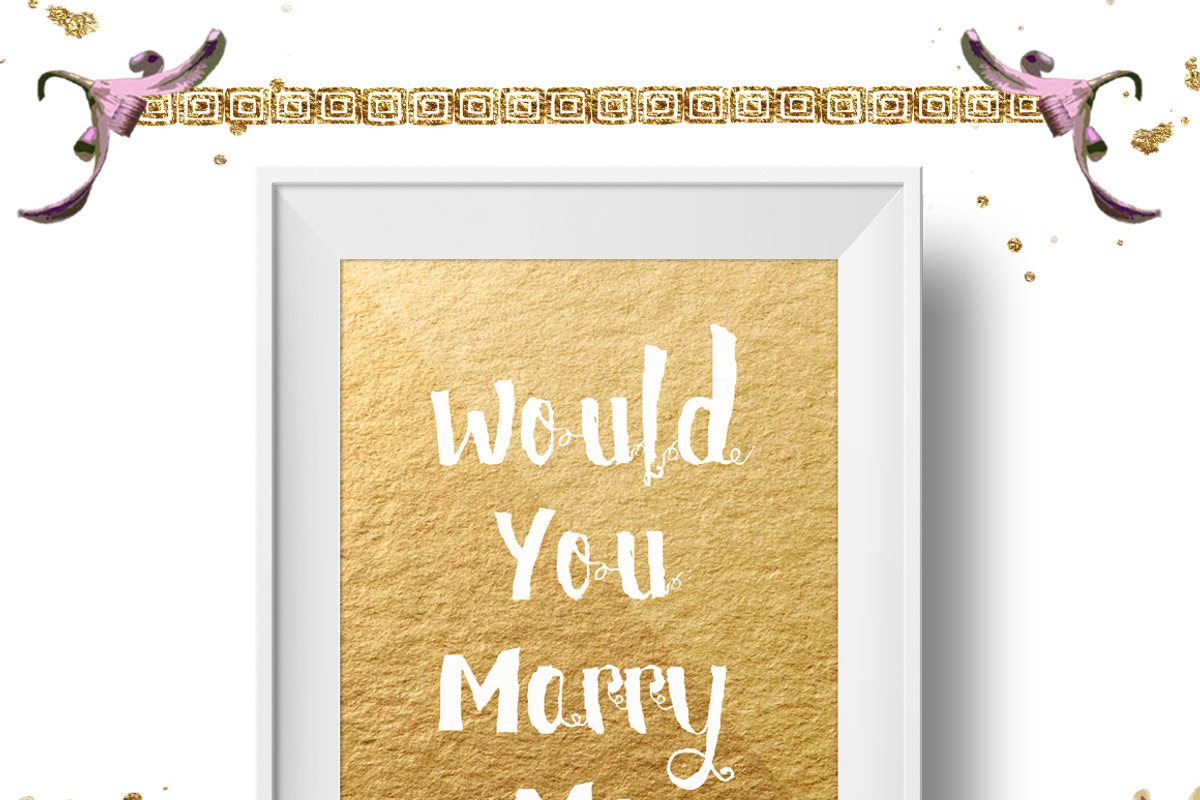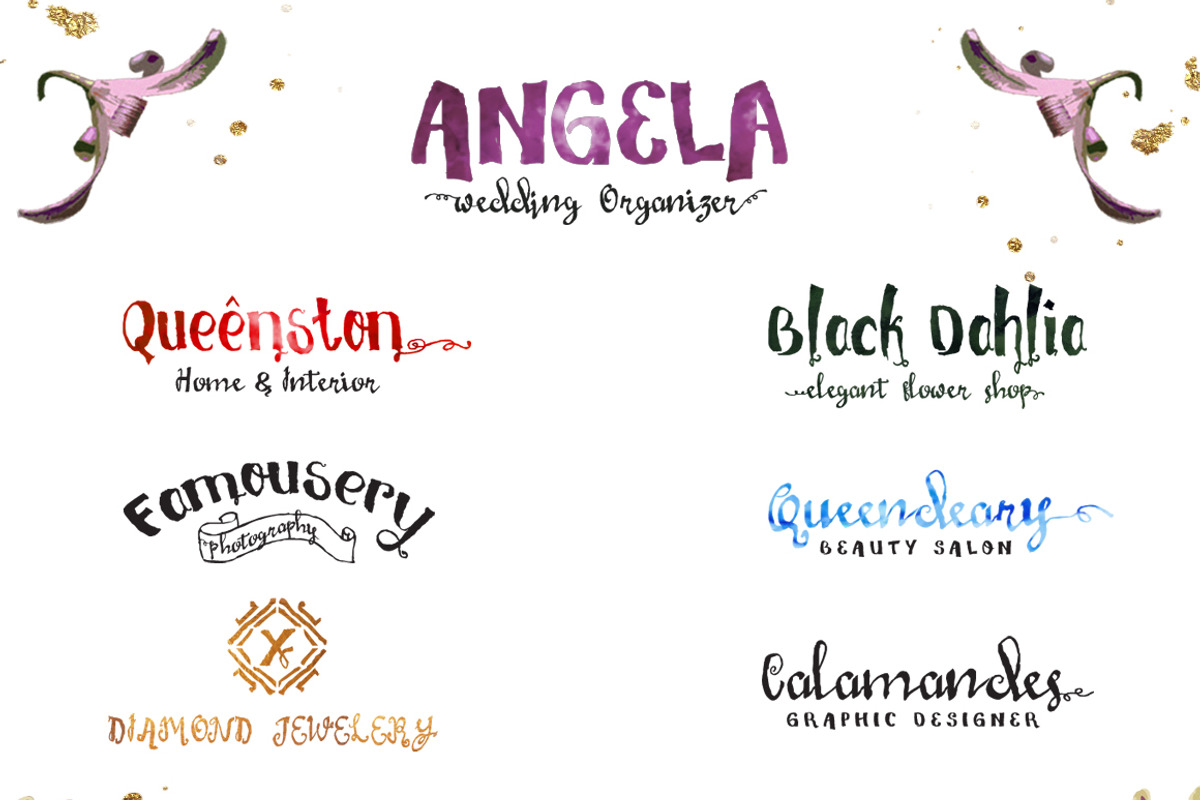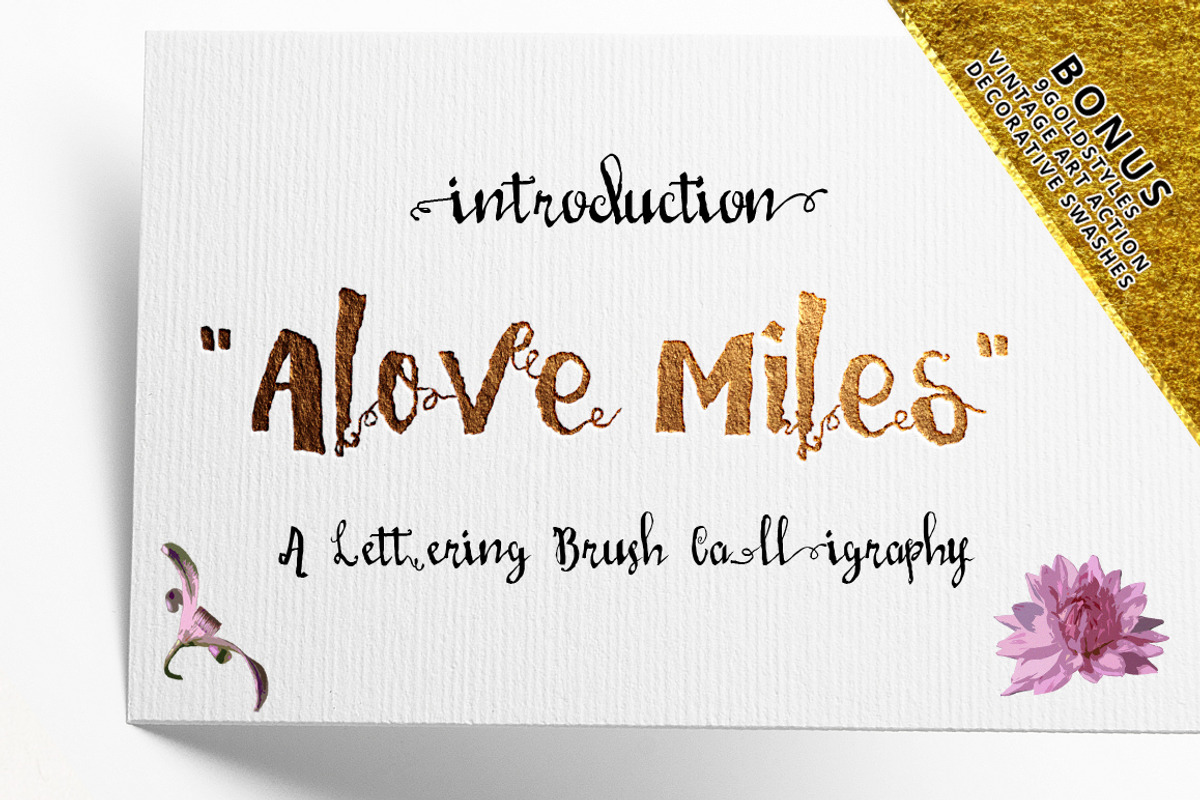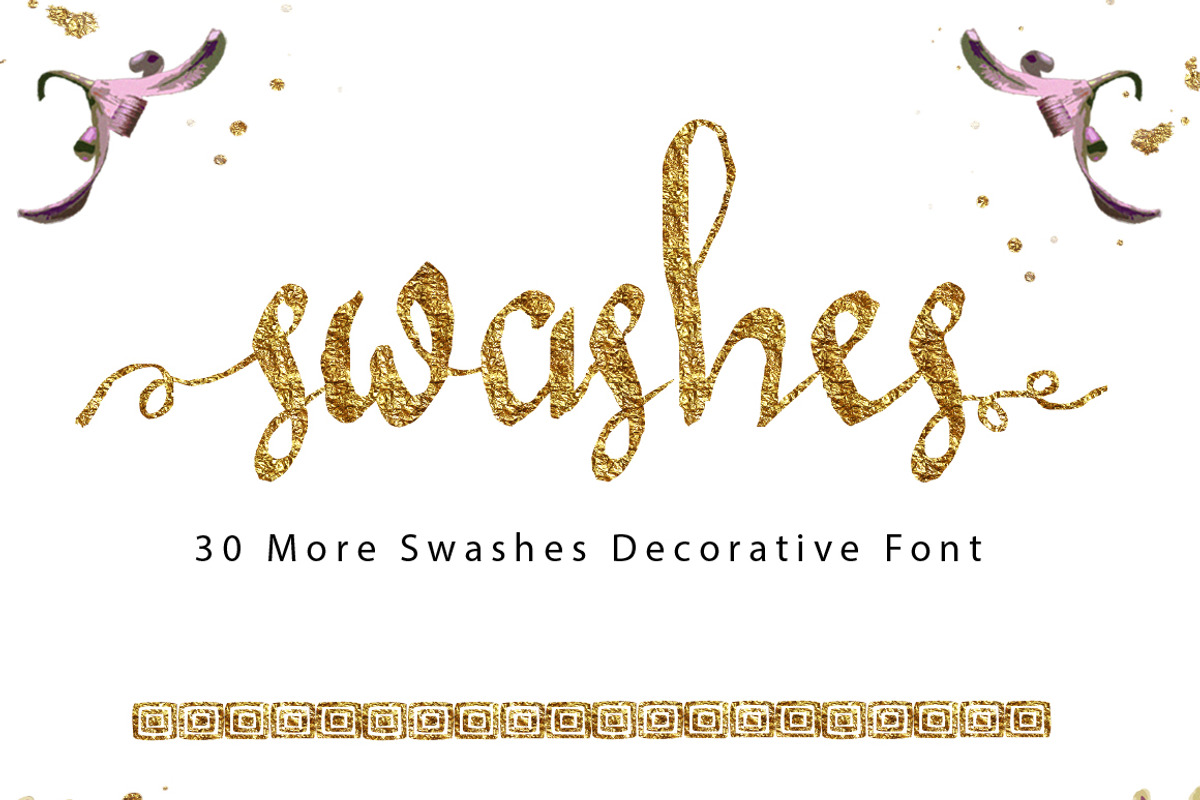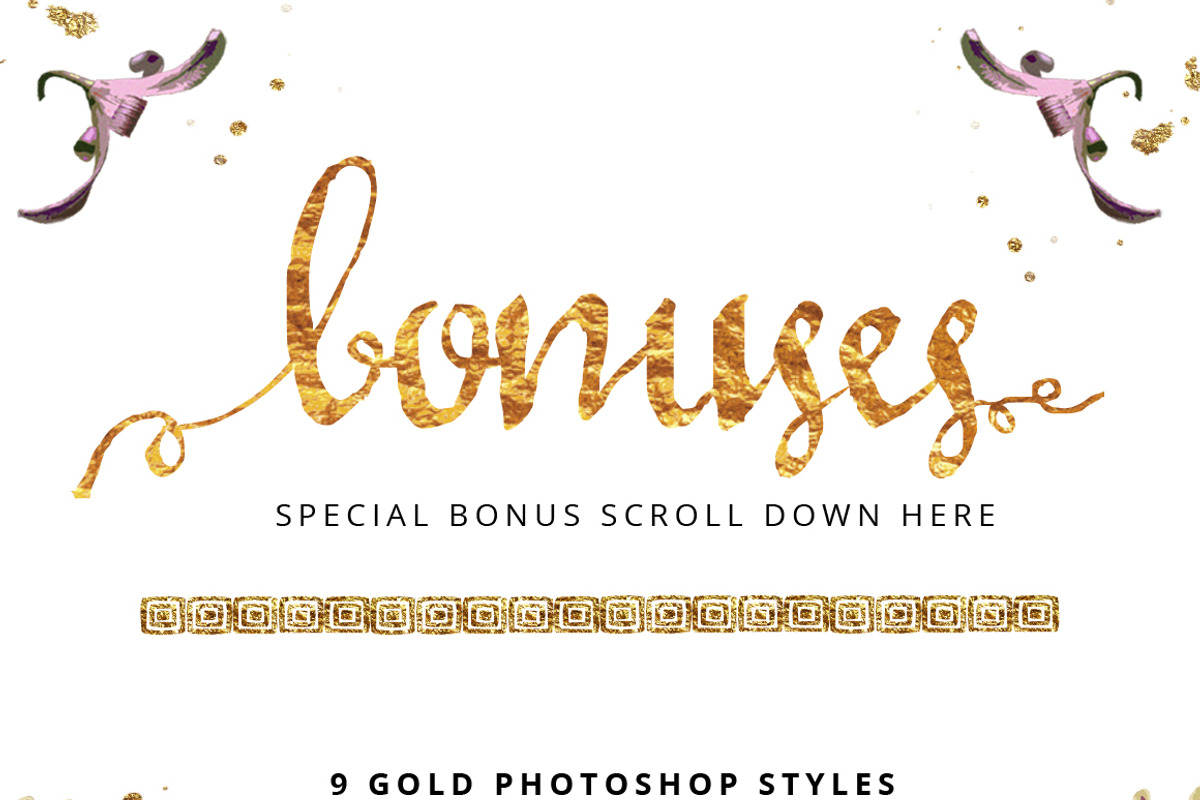
Love Mile Typeface
Love Mile Typeface by FHFont is a font selected for branding, posters, packaging, typography.
Why Love Mile Typeface is worth a look
Love Mile Typeface by FHFont fits naturally into Branding, posters, packaging, typography.